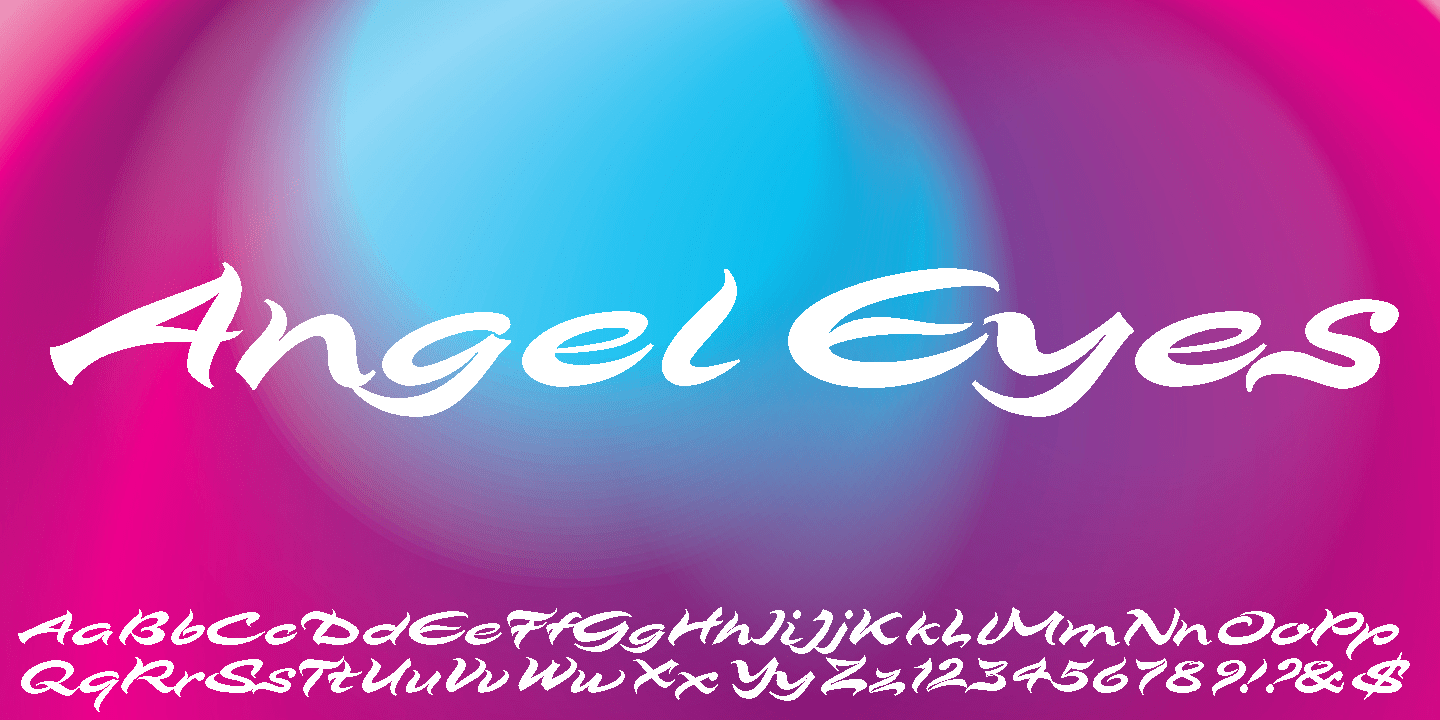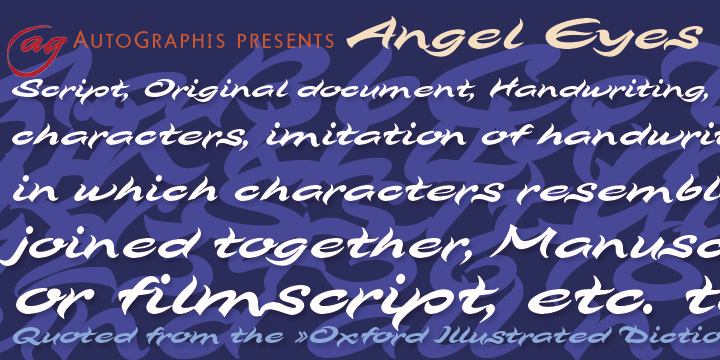
Angel Eyes
Font Family by Autographis
Angel Eyes is a wide, swinging stylized brush script with a lot of personality, a unique look and very good readability.